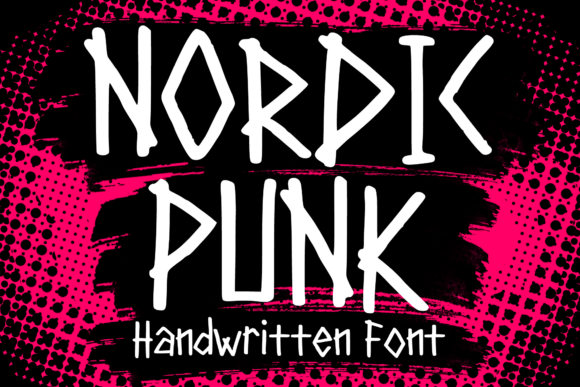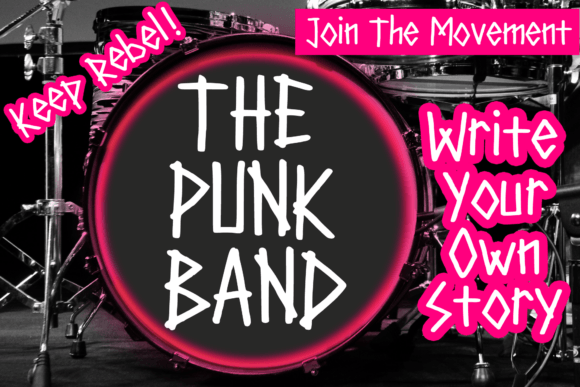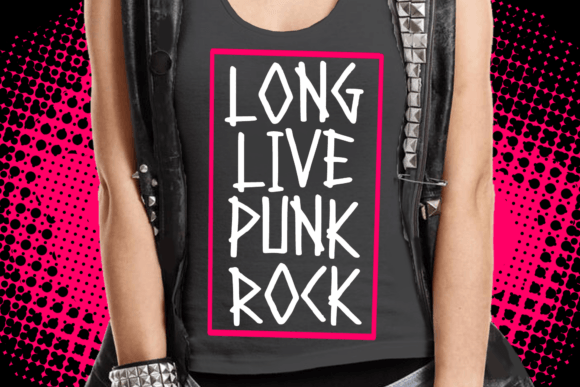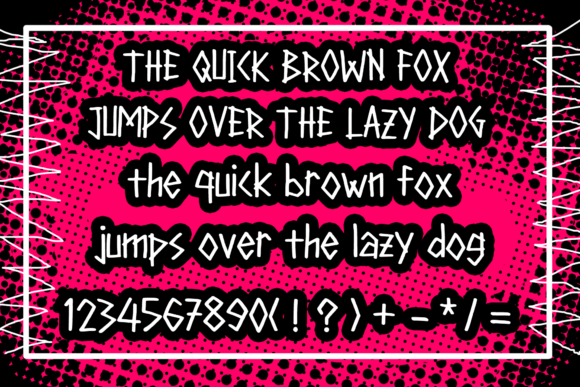
Nordic Punk Font
About the Nordic Punk Font
Experience the unique personality of Nordic Punk Font, a font designed for impact. Nordic Punk is a decorative display typeface inspired by the 90s punk scene. It will elevate a wide range of design projects to the highest level. You can use this font for many design ideas such as stickers, t-shirt designs, amazing logo designs, magazine or book covers, comics, cartoon drawings, and many more. This font will add a cool touch to your designs!
Nordic Punk’s strong, angular forms make it ideal for headlines, logos, and short impactful text on posters or packaging. Its rebellious energy is perfect for brands targeting a young, alternative audience. Avoid using it for body copy or UI elements; its decorative nature reduces readability in extended text.
Pairing it with a clean sans-serif like Futura or a neutral serif like Garamond creates a balanced contrast. For a bolder aesthetic, consider a geometric sans-serif such as Helvetica. A playful script font could also work well, depending on the specific application, to add a layer of texture and visual interest.
The font’s personality is undeniably bold and rebellious, reflecting a raw, energetic aesthetic reminiscent of 90s counter-culture. It’s best suited for projects needing a strong visual punch and a touch of edgy attitude.
Nordic Punk Font Usage Examples
Nordic Punk Font Example